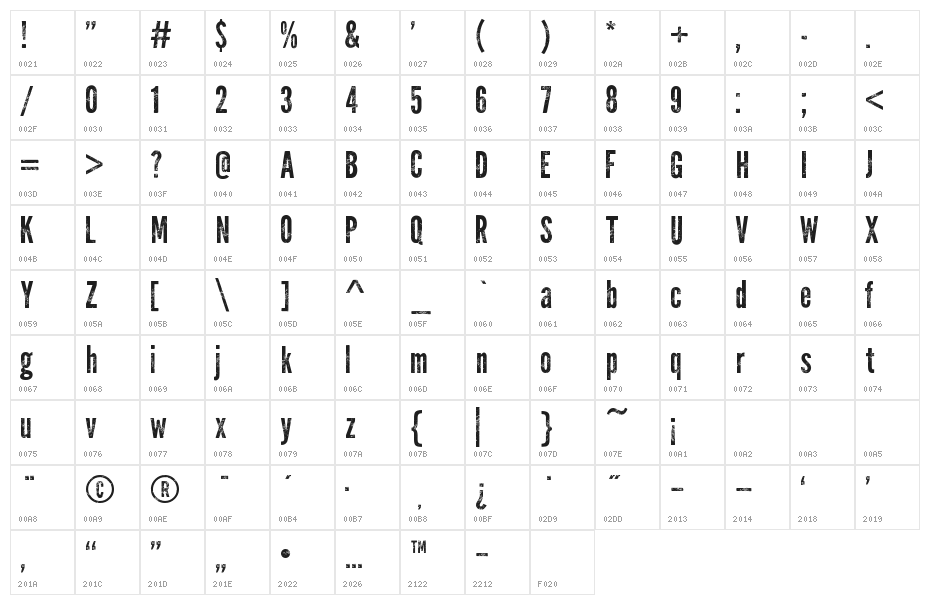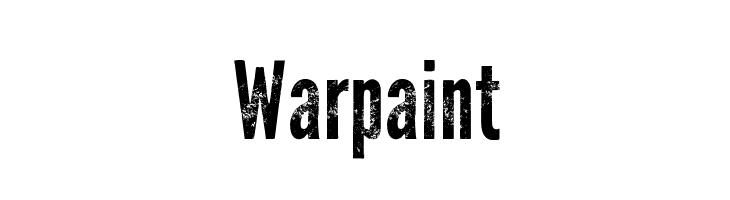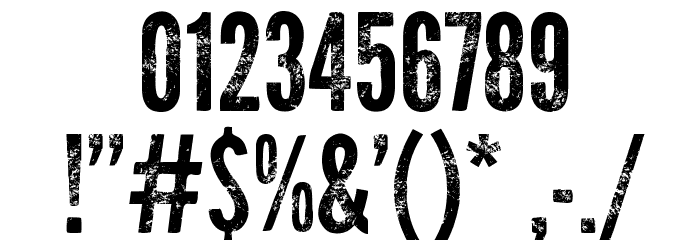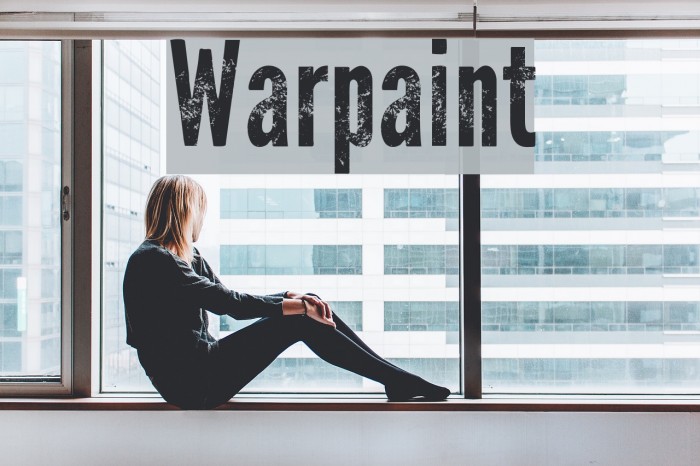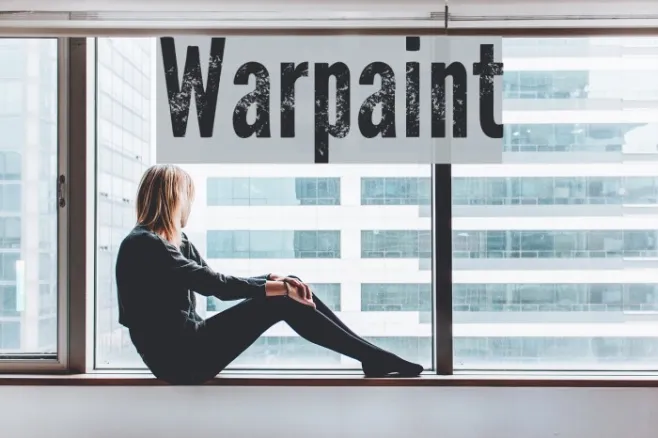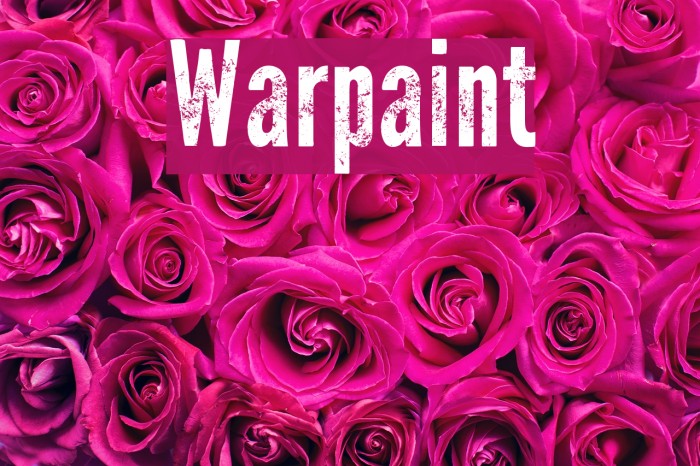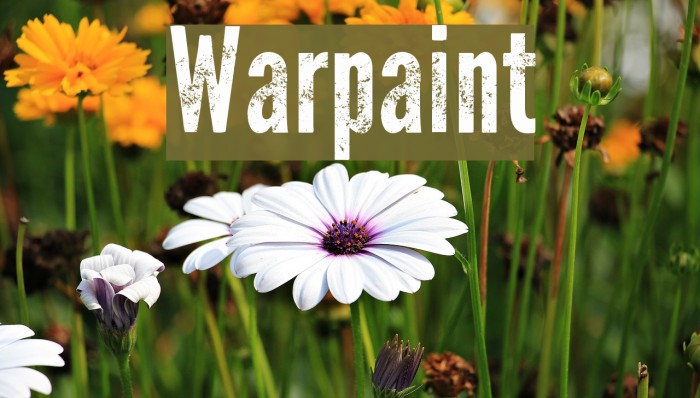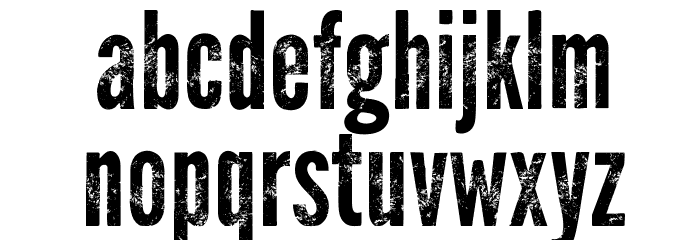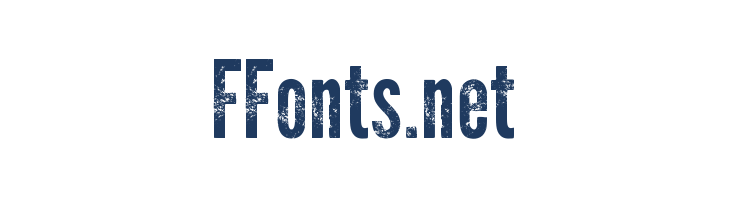
Warpaint Font
Warpaint Description
This font features a bold, distressed style with a rugged texture that gives it a worn, vintage appearance. The uppercase and lowercase letters are consistent in their boldness, with a slightly condensed width that enhances its impactful presence. The numbers and special characters maintain the same distressed aesthetic, making them cohesive with the overall design. The texture adds a gritty, urban feel, suitable for projects that require a strong, eye-catching typeface. Its high contrast between the thick strokes and the distressed areas adds to its dynamic look.
| Width | Condensed |
| Overall Style | Vintage |
| Proposed Projects | Ideal for posters, album covers, branding, and any design needing a bold, vintage touch. |